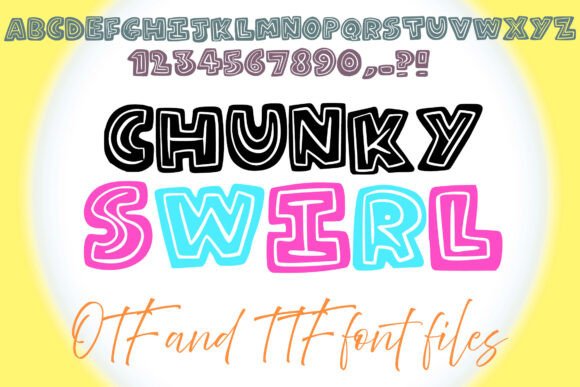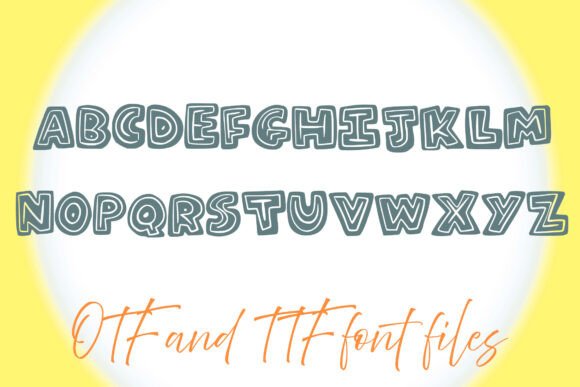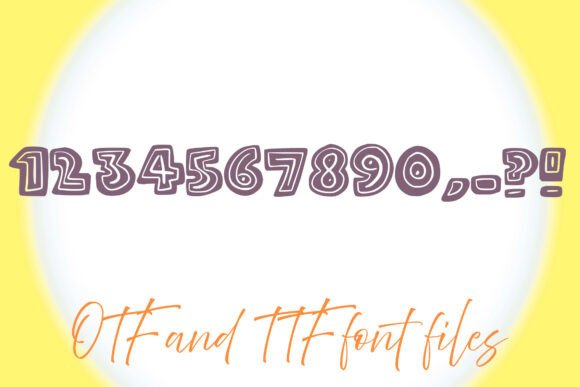
Chunky Swirl Font: A Playful Outline Font for Cricut & Social Media
About the Chunky Swirl Font
Let us introduce you to Chunky Swirl Font, where timeless design meets modern craftsmanship. Chunky Swirl is a lively and bold outline font designed to bring fun and energy to your projects. With a hand-drawn, bubbly aesthetic and layered outline effects, this font is perfect for children’s designs, comics, posters, social media graphics, and creative branding. Whether you want a retro-inspired look or a playful modern touch, Chunky Swirl will make your text stand out with personality.
Chunky Swirl Font Example